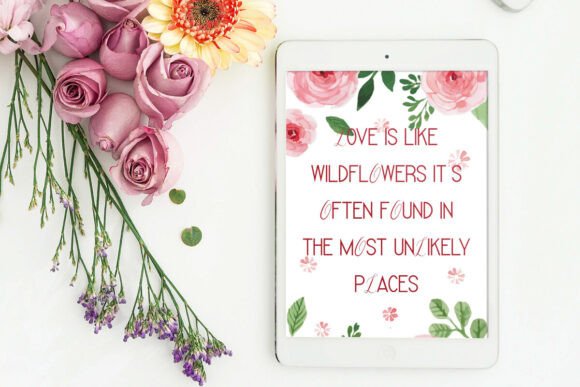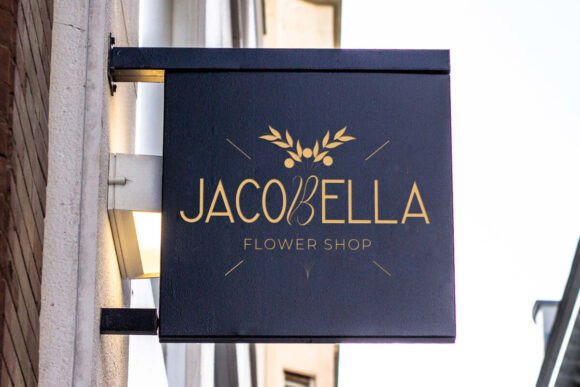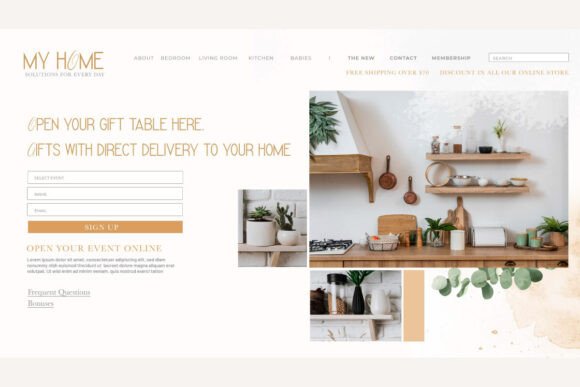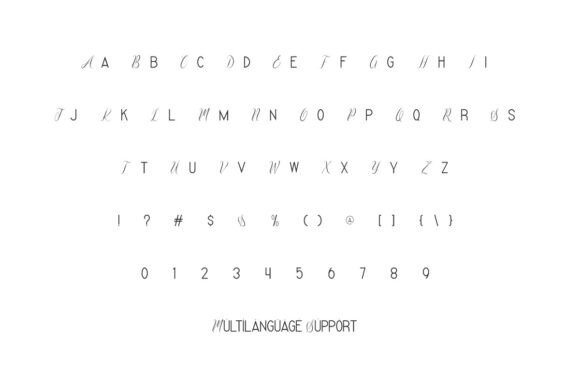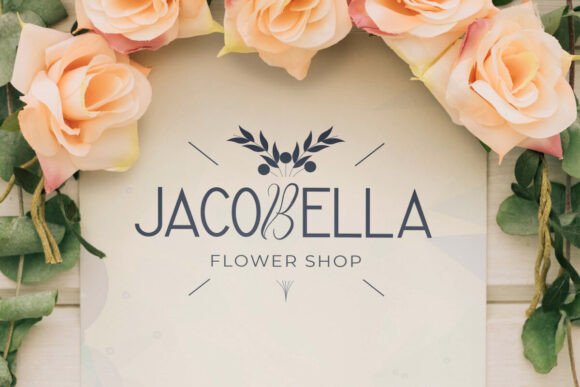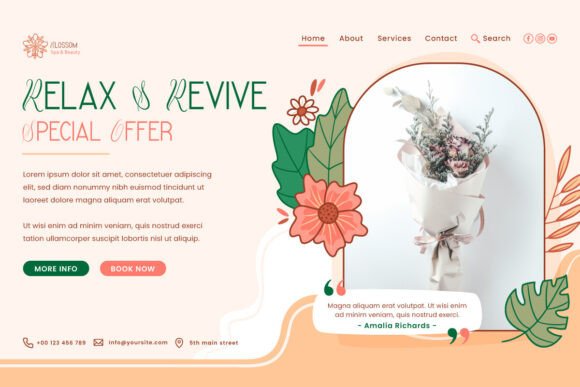
Introduction to Flower Snow Font
Flower Snow is an elegant beautiful serif font which have two different styles, script for uppercase and sans serif for lowercase.
This combination makes them fit into many designs, such as brochure, business card, custom design, gift box, invitation, label, product packaging, quote, screen printing, signage, website, and more .